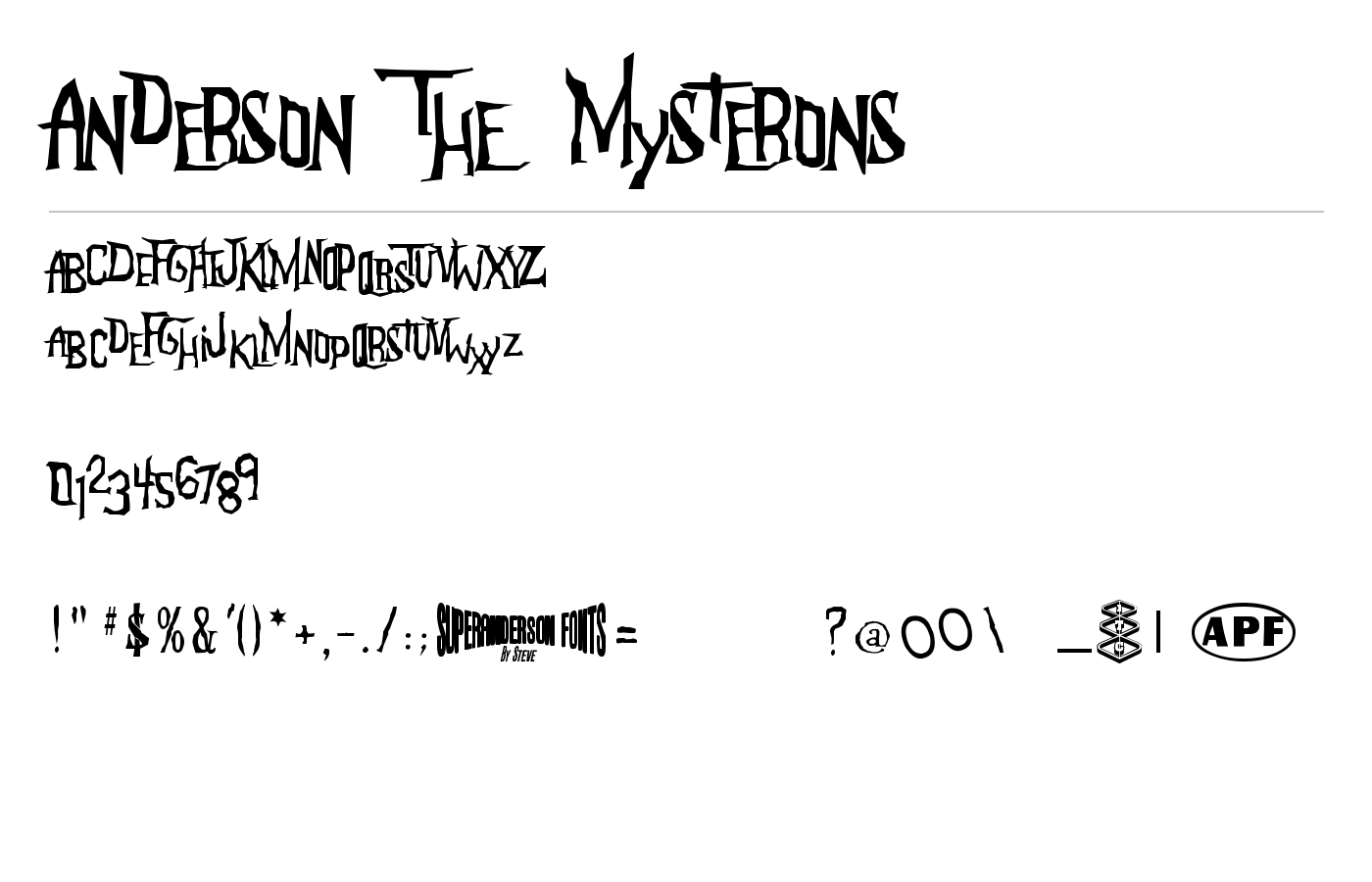
Anderson Family Font is a distinctive, hand-drawn serif typeface with a quirky and irregular character that exudes a playful yet eerie vibe. Its tall, narrow letterforms with sharp, uneven strokes create a striking, almost haunted appearance, making it ideal for creative projects like Halloween-themed designs, posters, or unique branding that seeks to stand out with personality. This font works best in headlines and display use where its unconventional style can capture attention and set an imaginative, mysterious mood.
Anderson Family Font